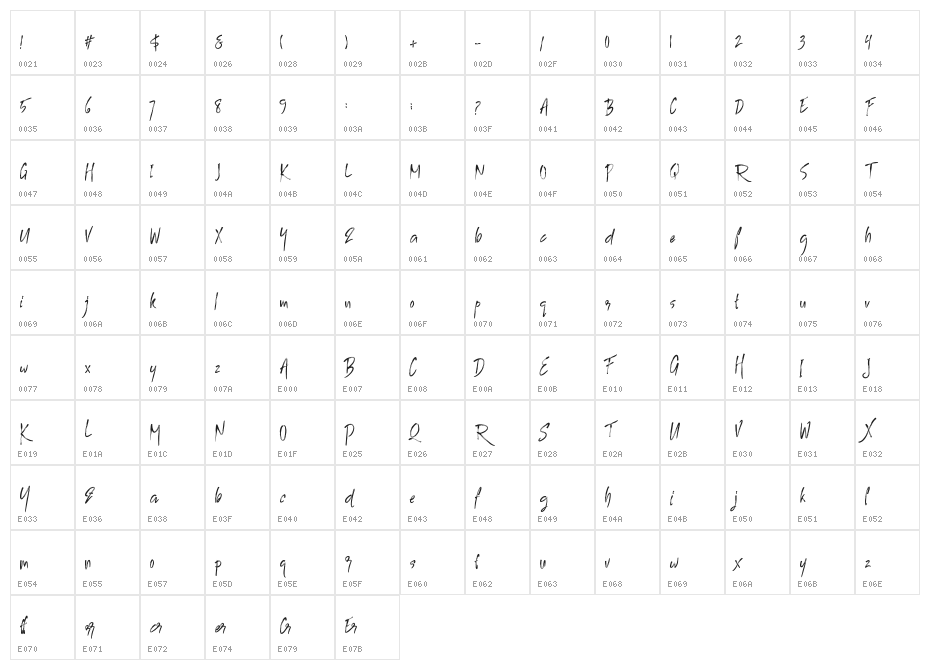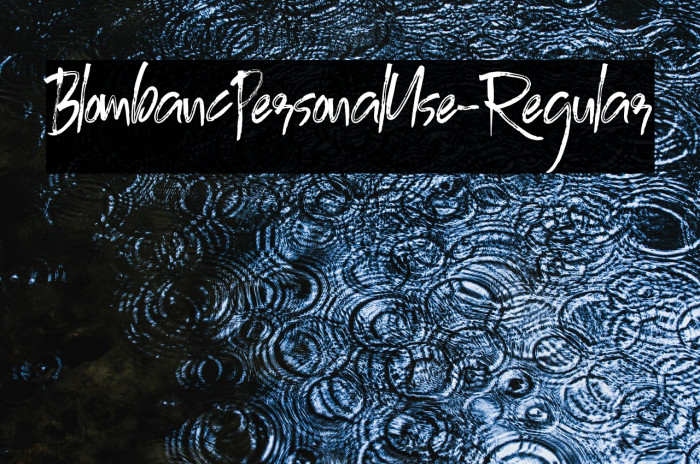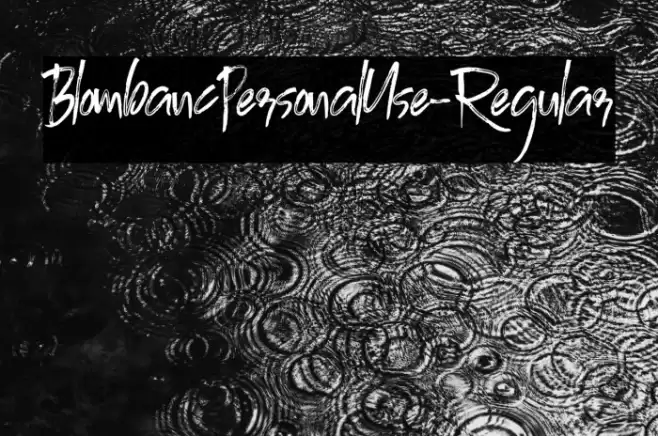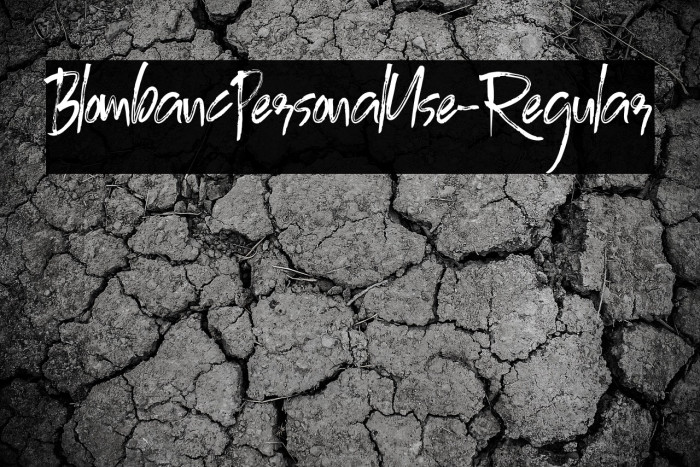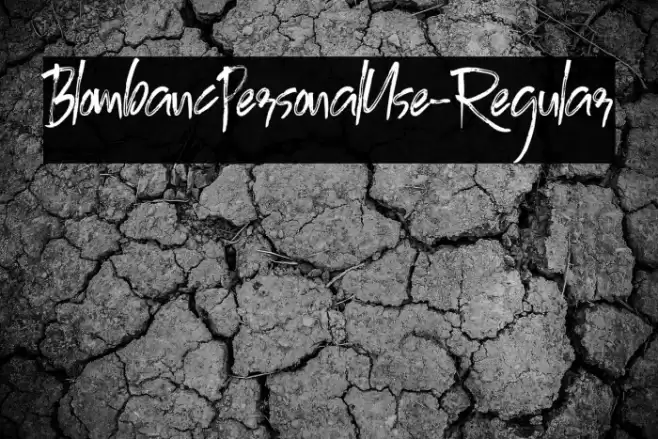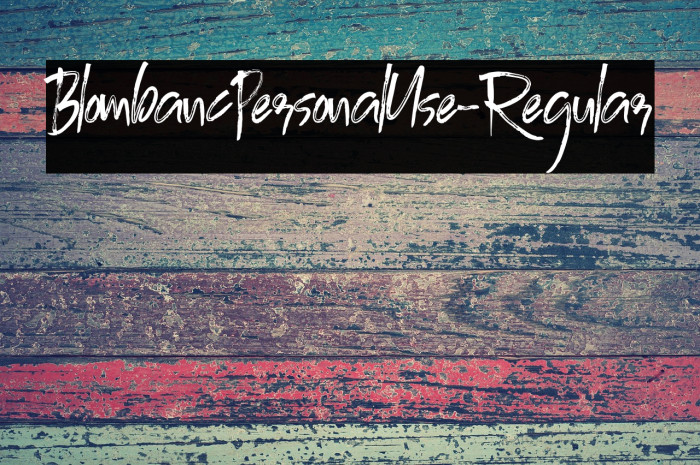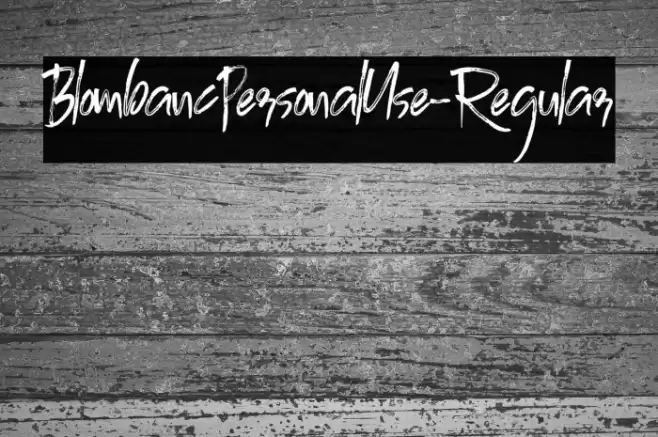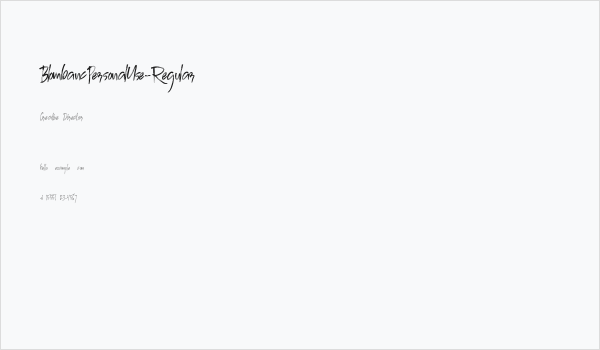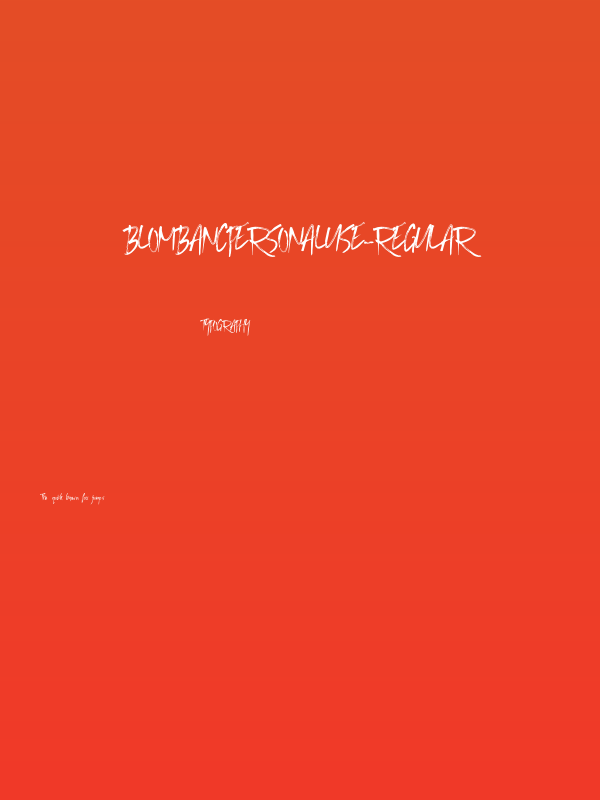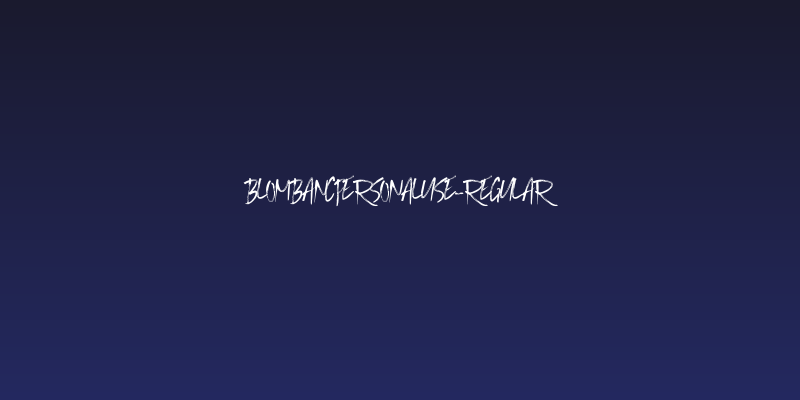
BlombancPersonalUse-Regular Font
BlombancPersonalUse-Regular Description
This font features a dynamic and expressive handwritten style, characterized by its bold and energetic strokes. The letters exhibit a slightly irregular form, adding to the font's organic and spontaneous feel. The uppercase and lowercase letters maintain a consistent style, with elongated and slightly slanted lines that convey a sense of movement. The numbers and special characters follow the same aesthetic, ensuring a cohesive look across all elements. This font's unique flair makes it stand out, ideal for projects that require a personal and artistic touch.